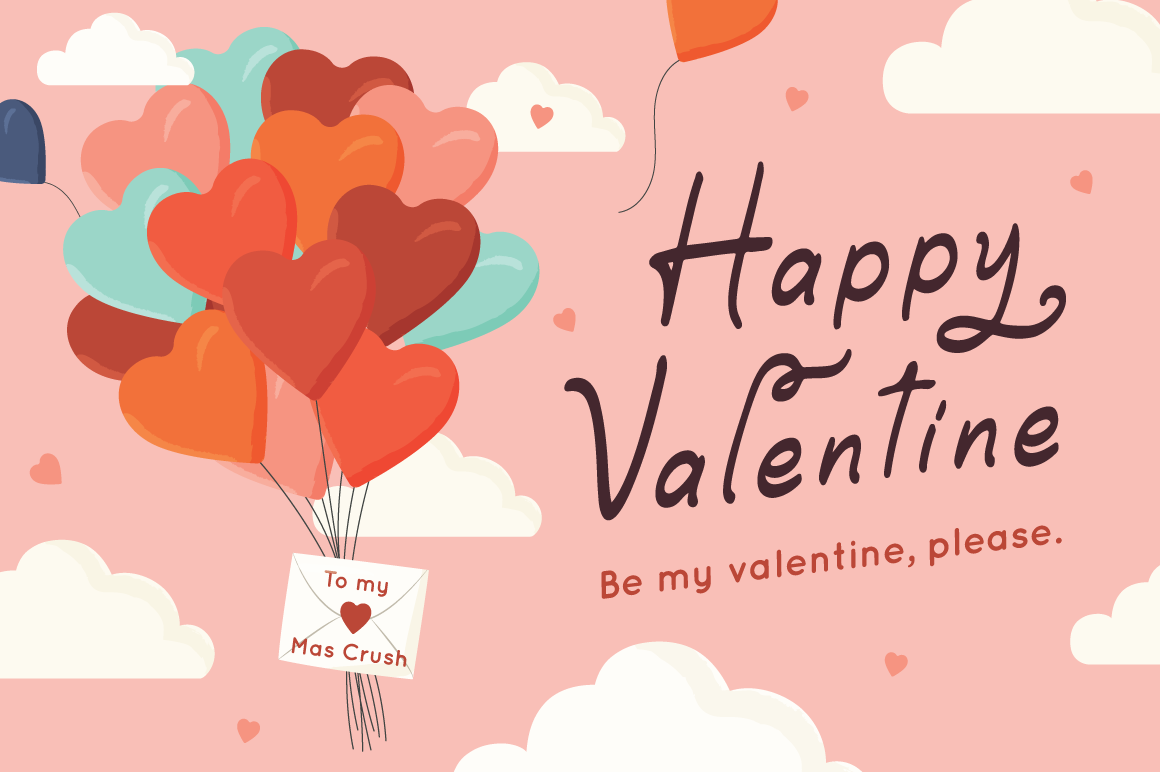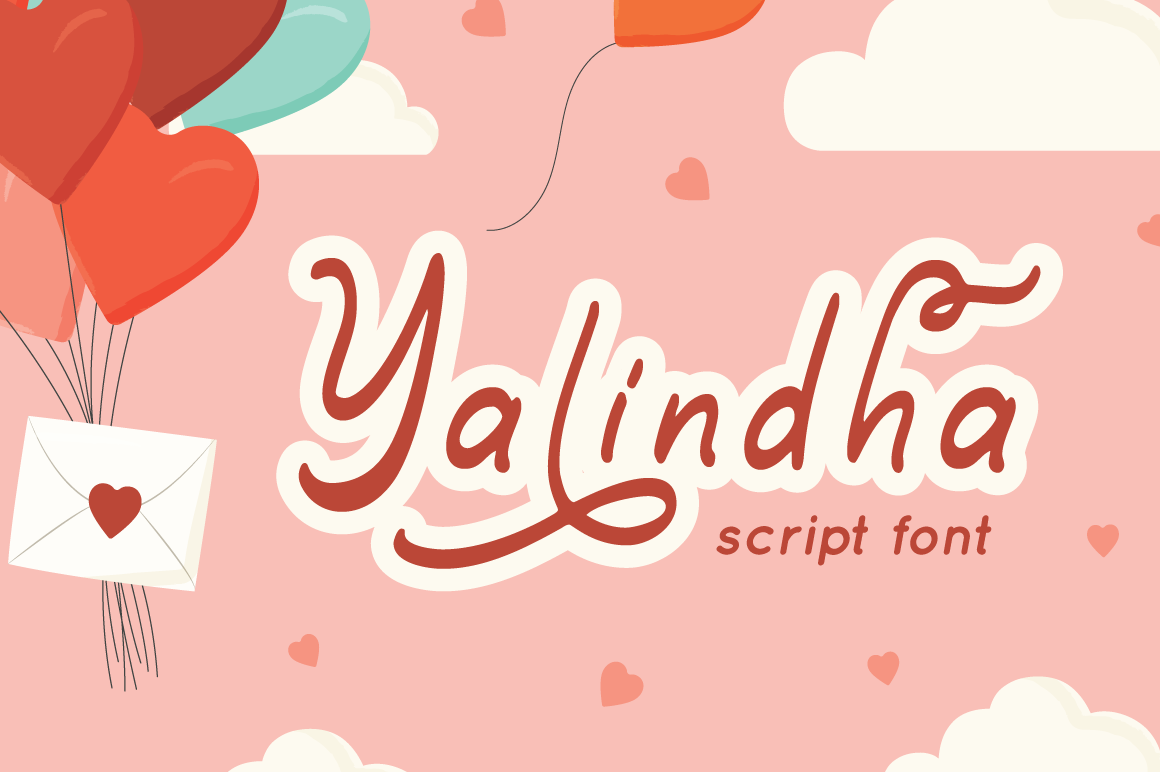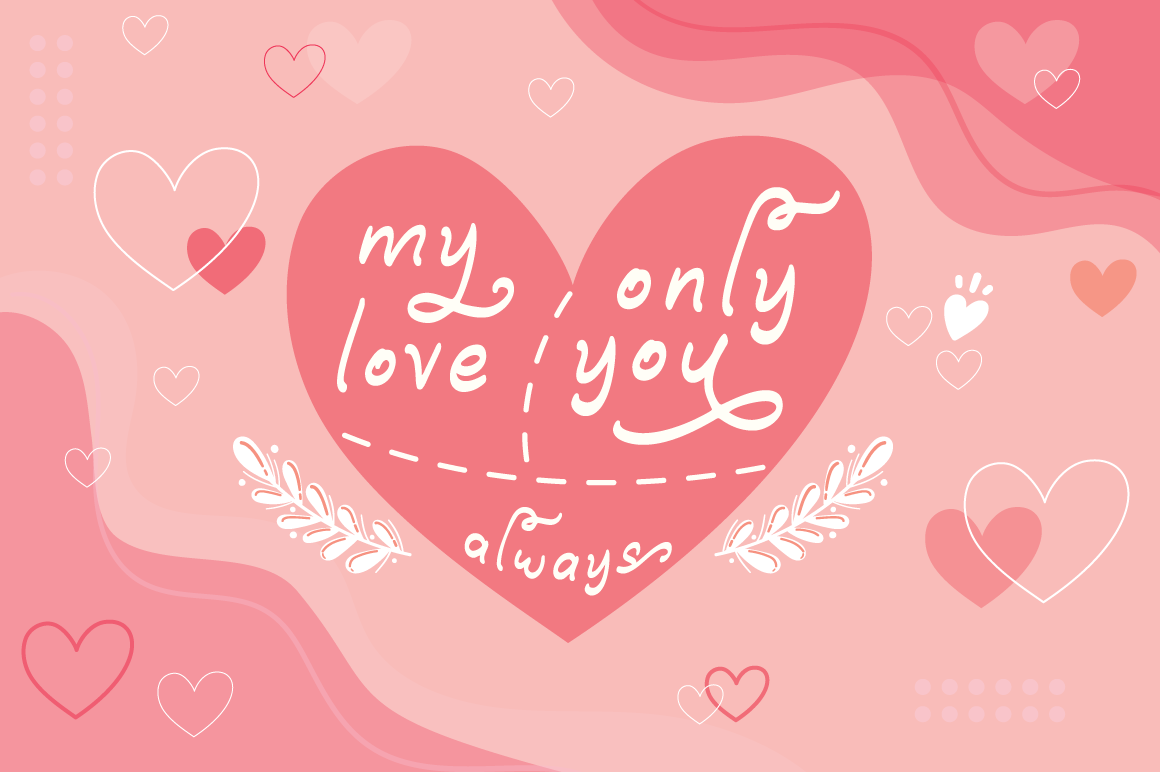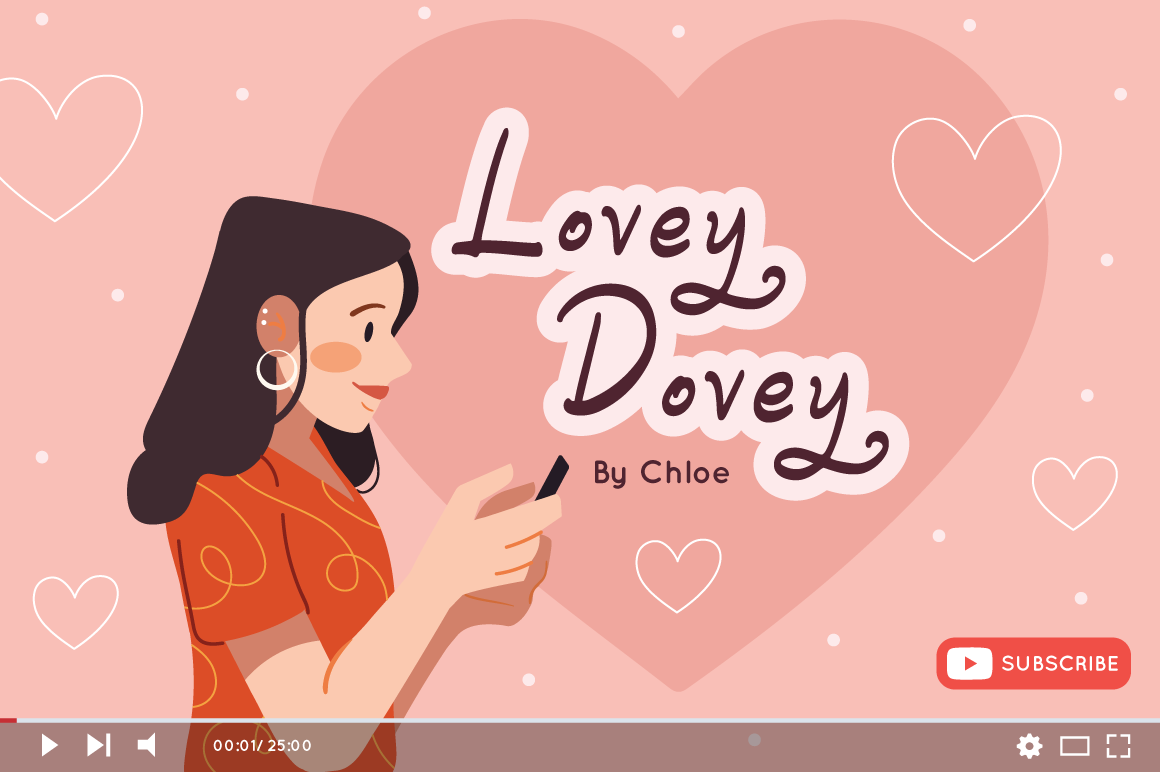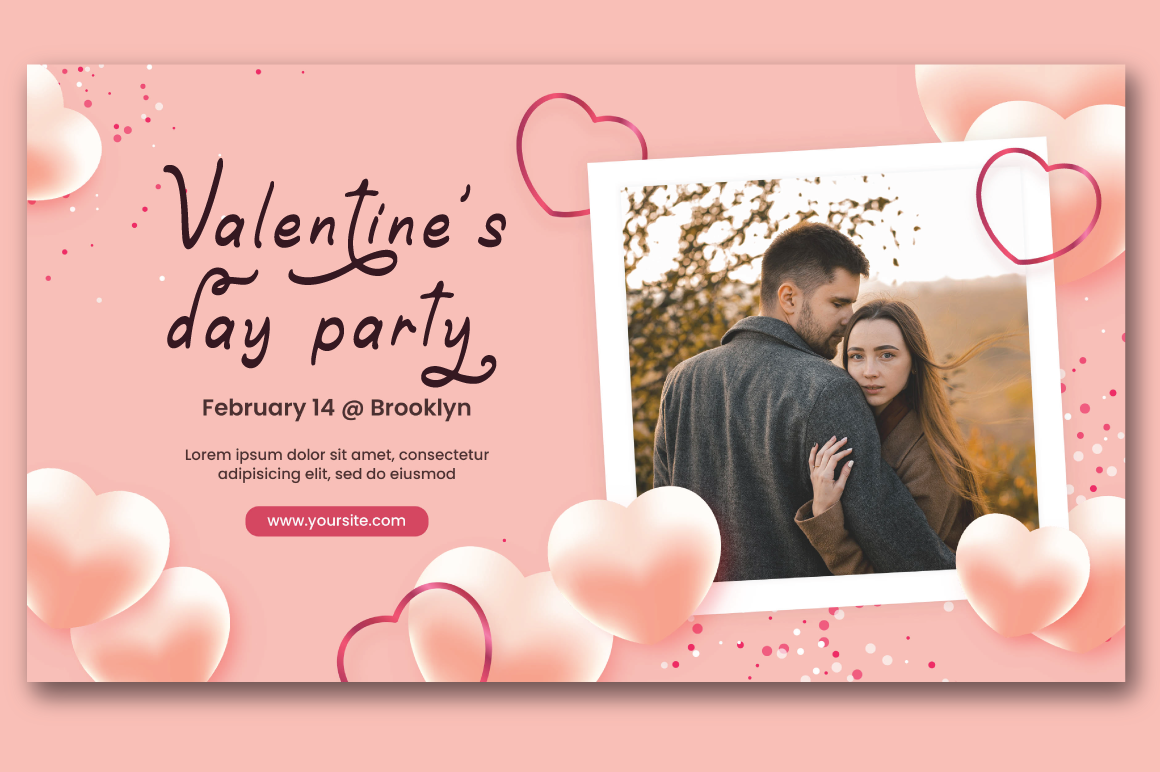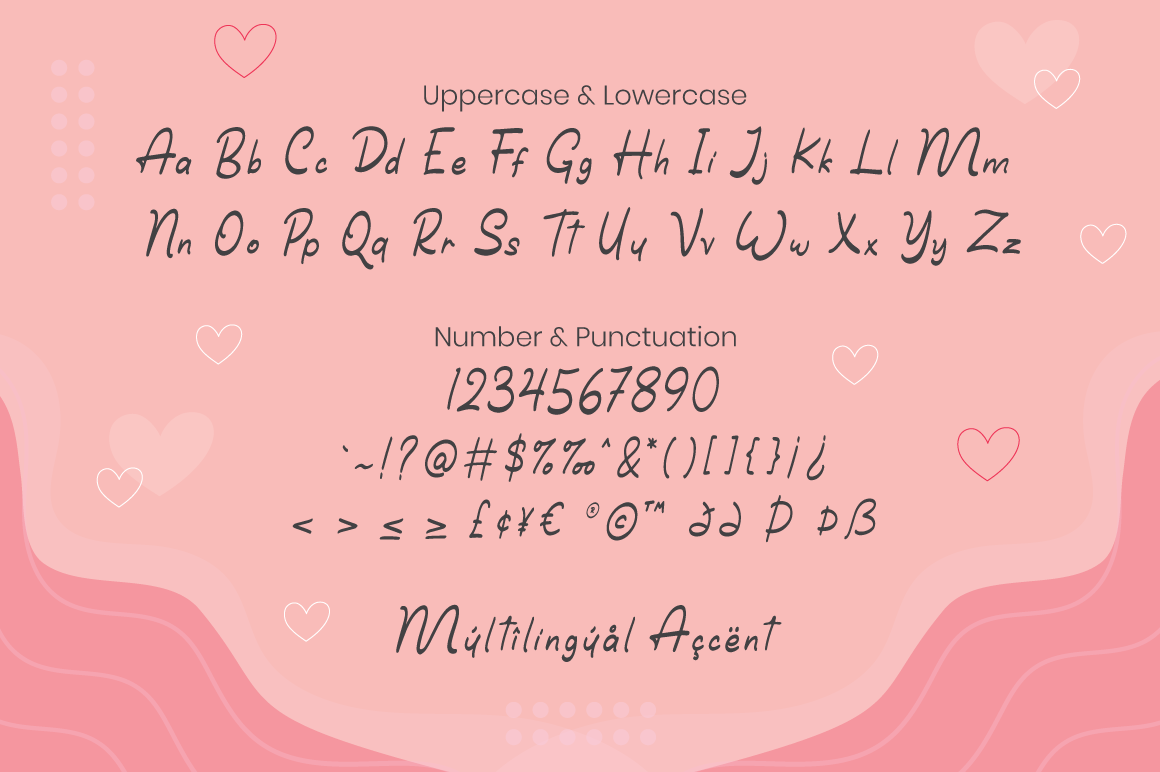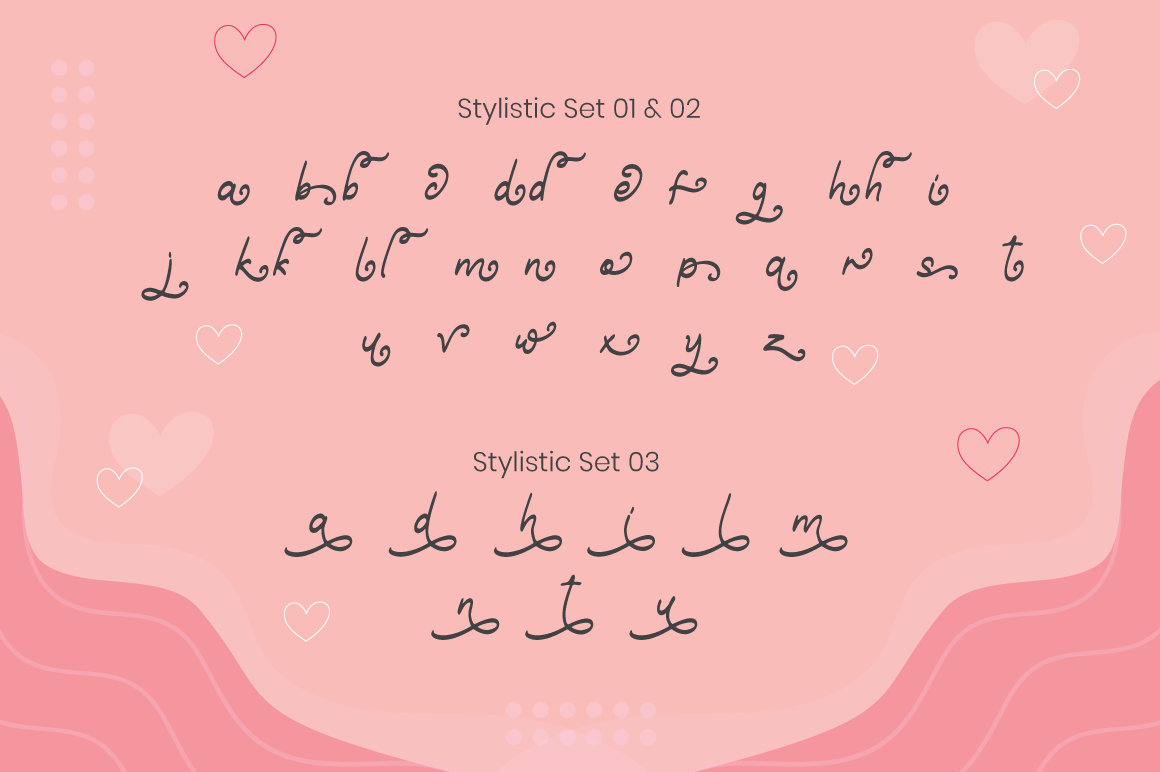
Yalindha is lovely script font with swash on ending word. This font perfect for valentine & wedding theme design. Combine it with Tallove ending swash & Alternates Character to make perfect design for yor projects. Yalindha perfect for valentine promotion, wedding invitation, branding, logo, invitation, stationery, social media post, product packaging, merchandise, blog design, game titles, cute style design, Book/Cover Title and more. What's Included : - Yalindha (.otf/.ttf/.woff) - Yalindha - Ending Swash (.otf/.ttf/.woff) - Multilingual Support - Made it into separated file to make it easier to use by beginner & separated file user can use the font with software which doesn't accept open type features. - Hope you enjoy with our font! Attype Studio | Yalindha - Valentine Font | Attype